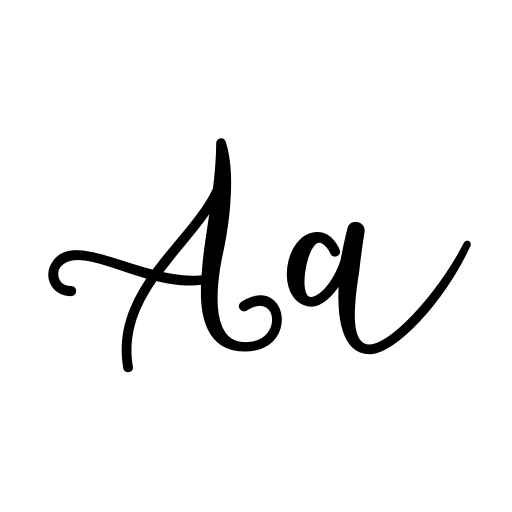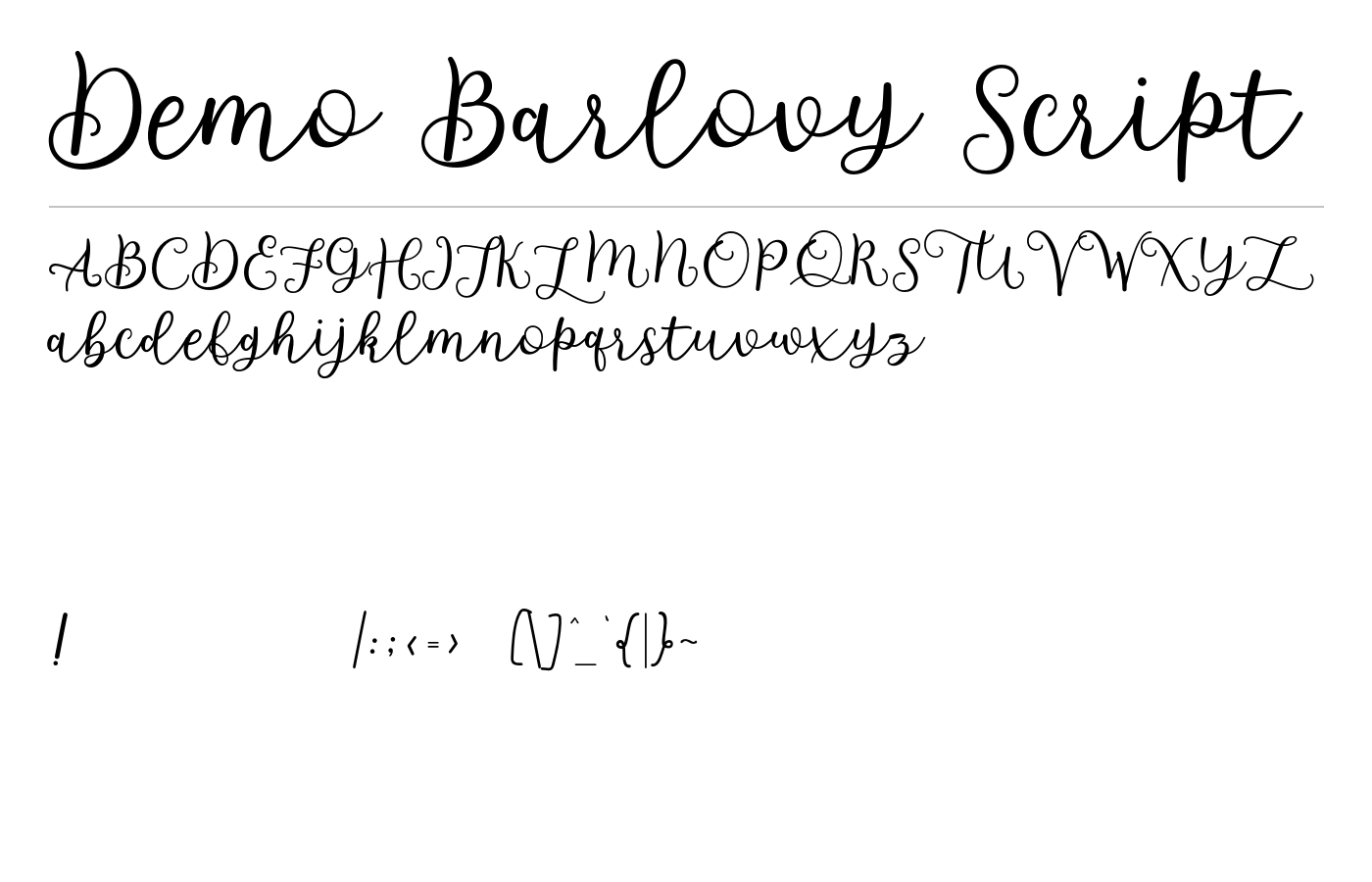
Demo Barlovy Script is a delicate and elegant handwritten font characterized by its flowing, cursive style with graceful loops and smooth strokes. It features a slender weight and moderate x-height, giving it a refined and airy feel ideal for invitations, branding, and decorative text where a personal, stylish touch is desired. This font works best in creative, feminine, or sophisticated design contexts, lending an artistic and charming personality to any project.
Demo Barlovy Font
About Demo Barlovy Font